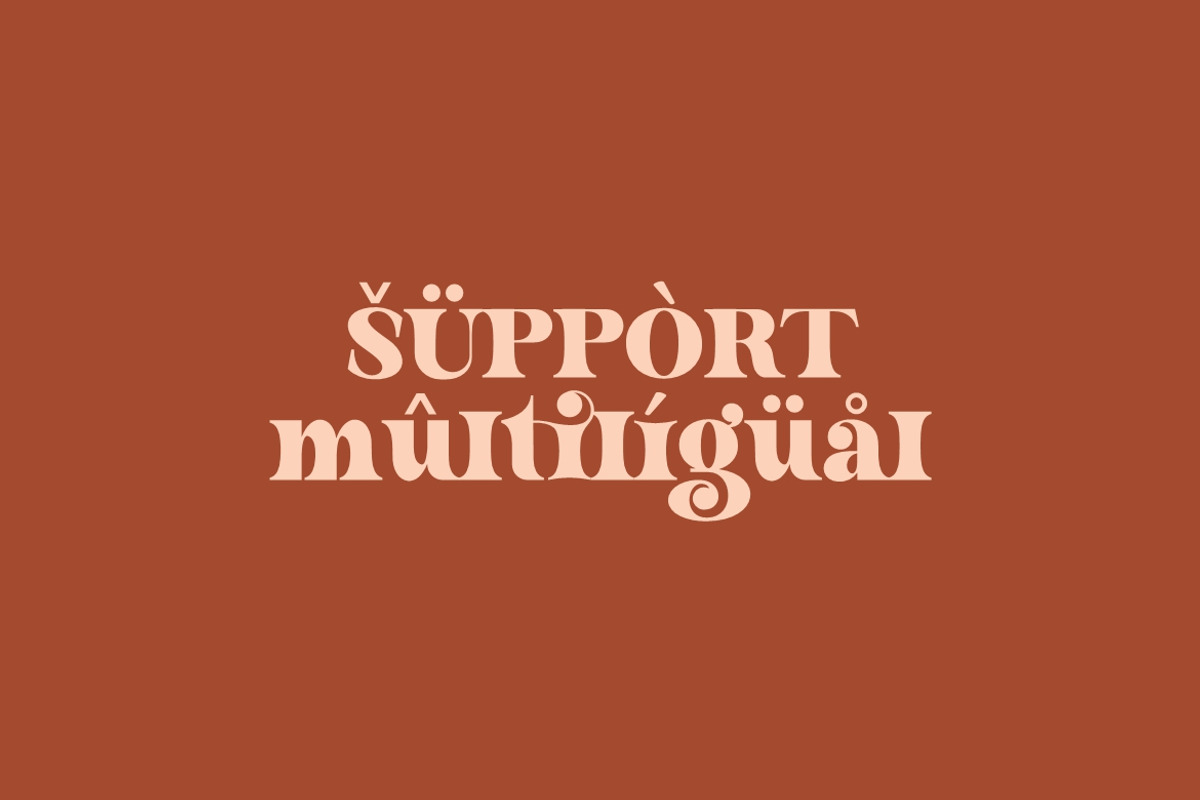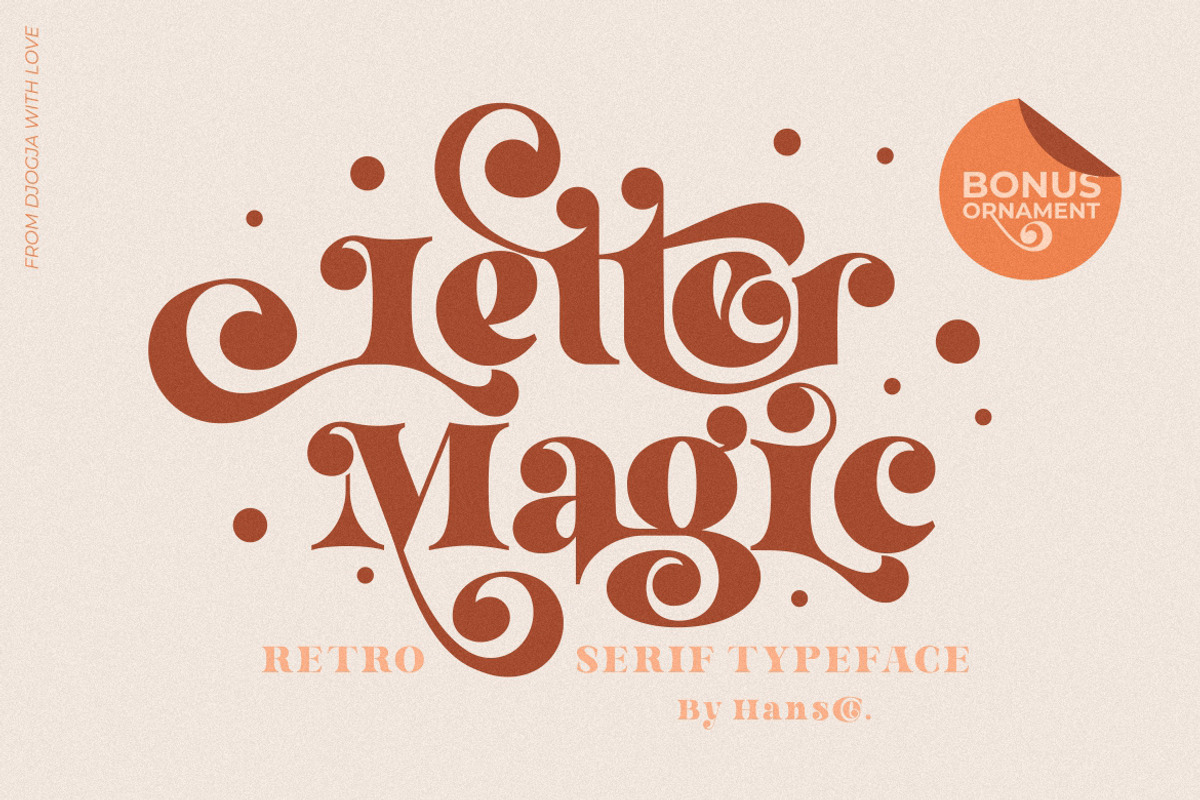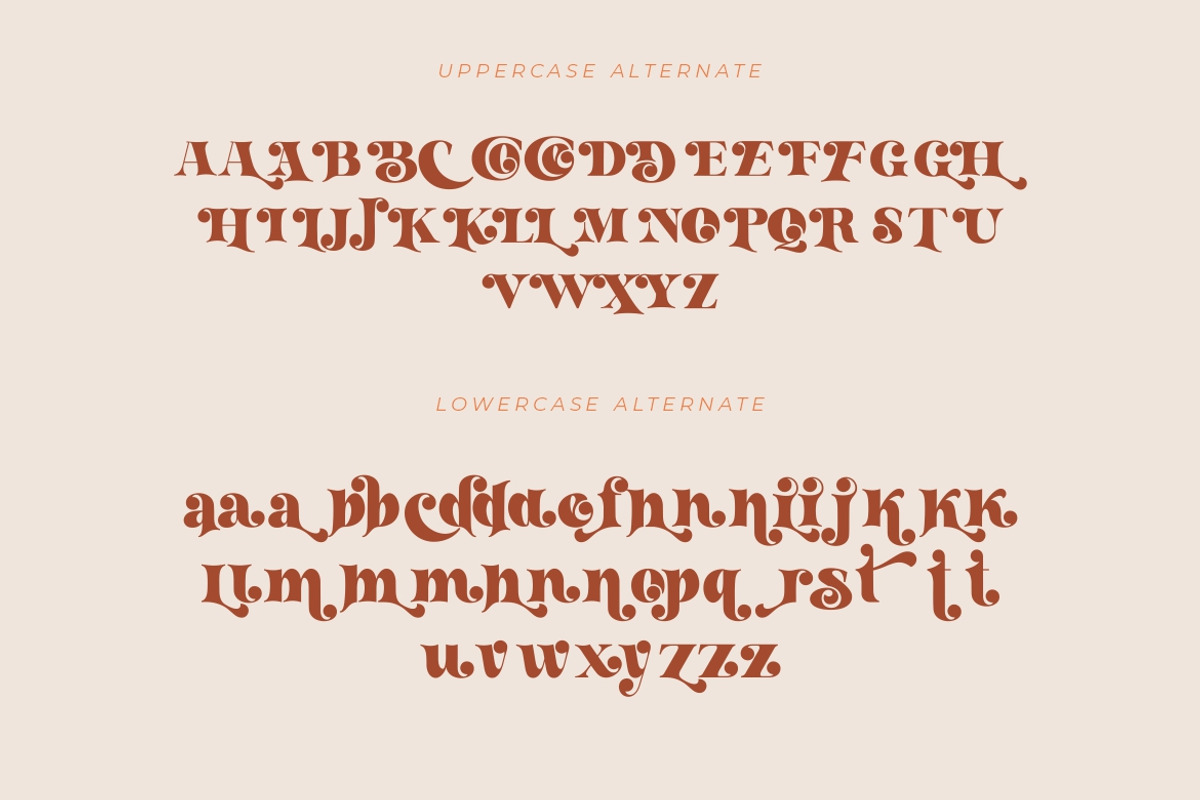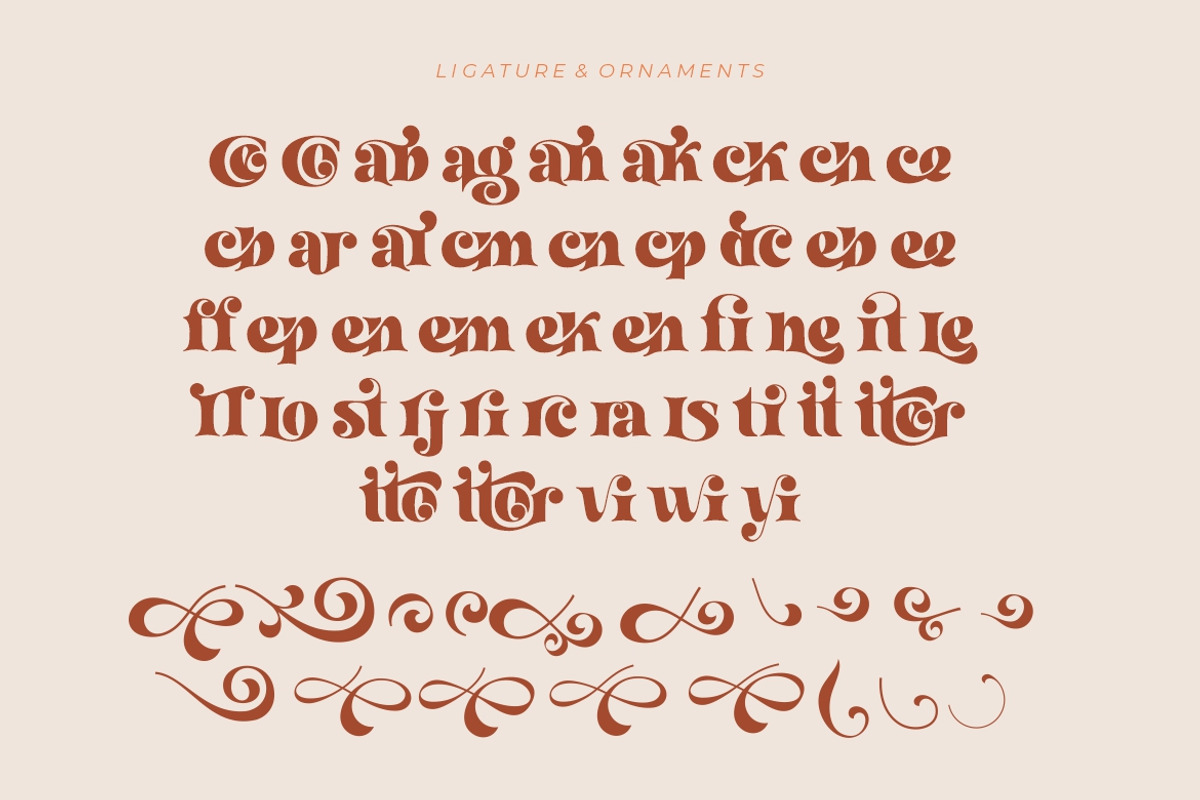
Letter Magic - Retro Serif Font
Letter Magic feels playfully nostalgic and delivers an incredible vintage aesthetic. Use this serif font to add that special retro touch to any design idea you can think of!
Masterfully designed to become a true favorite, this font has the potential to bring each of your creative ideas to the highest level!
- alternates
- swashes